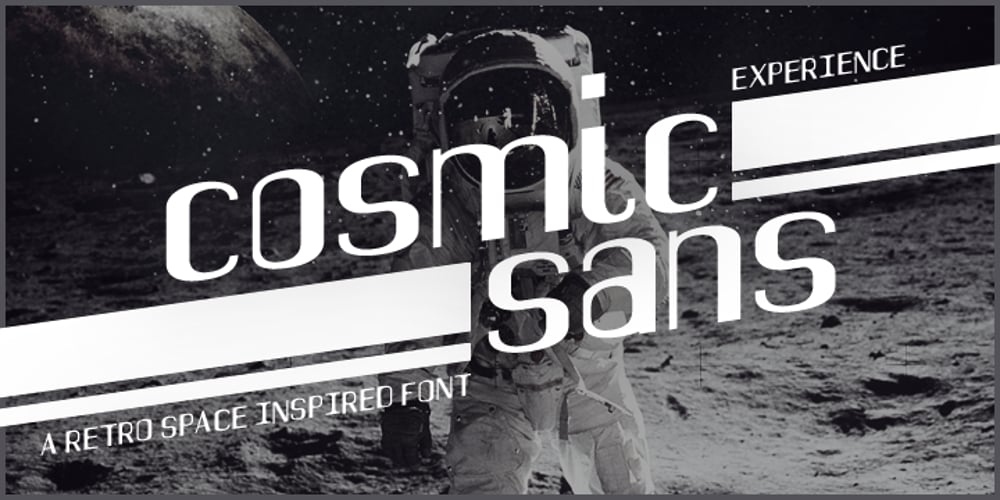
Cosmic Sans
Cosmic Sans font
Cosmic Sans Font Family was designed by Zachary Mazur and published by Zachary Mazur. Cosmic Sans contains 1 styles and family package options. Cosmic Sans was my first font ever created for a school project. The class I made this font for was my Advanced Typography and was a semester project. I really couldn’t think of a title for this font, until one of my good friends said, “Why don’t you name it Cosmic Sans?” I searched the internet for any other fonts with that name, and sure enough there wasn’t. Thus the name stuck. This font is more or less a display font, thus every secondary character was not created. I hope you enjoy this font and much as I have while creating it!